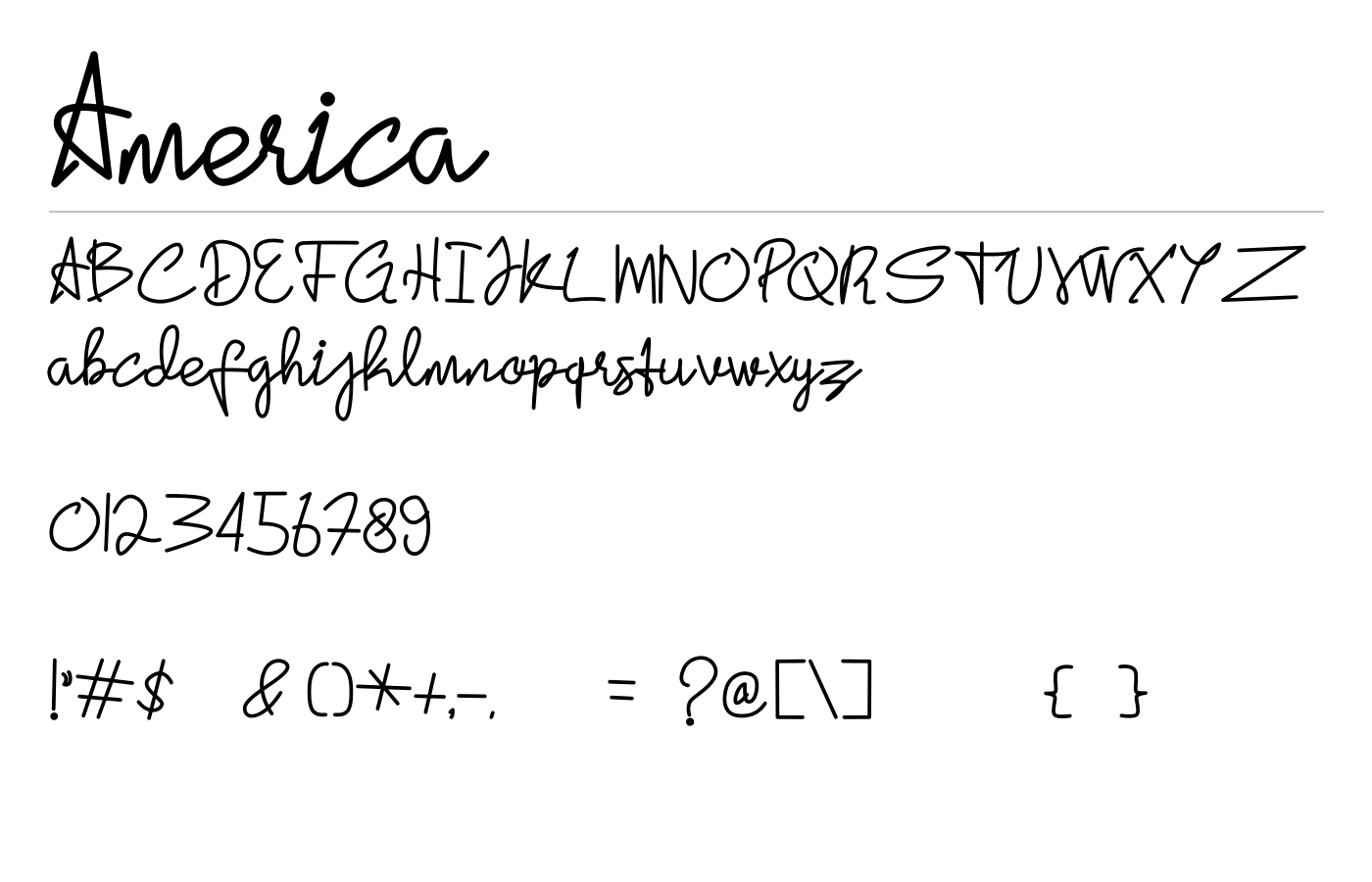
America Font is a casual, hand-drawn script typeface that combines playful, energetic letterforms with a natural, informal feel. Its light weight, consistent stroke width, and slightly condensed, flowing characters make it perfect for creative, friendly branding and eye-catching headlines where a personal touch is desired. This font works well for invitations, logos, and social media designs that aim to convey warmth and approachability.
America Font
About America Font